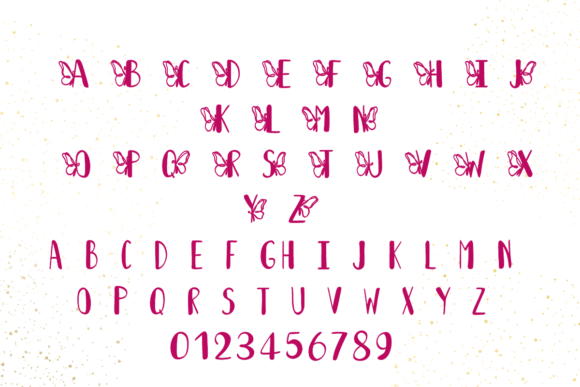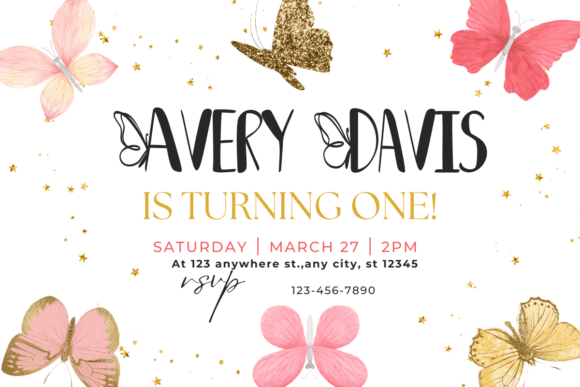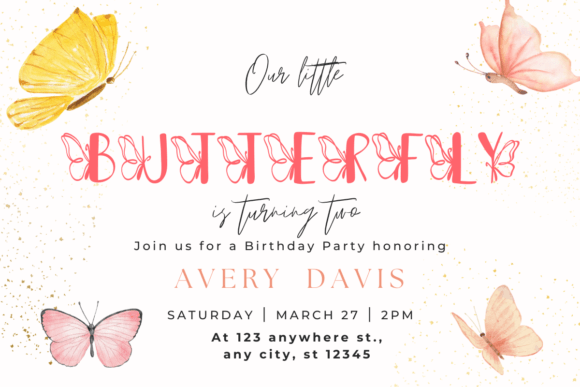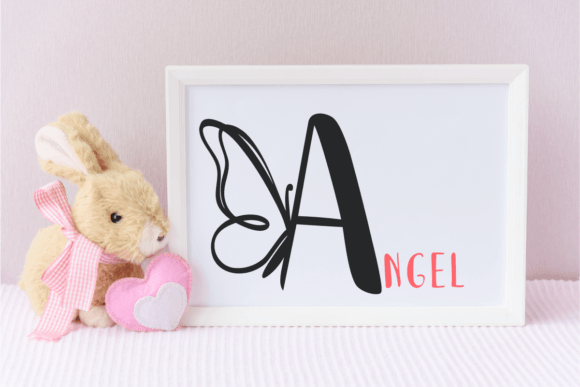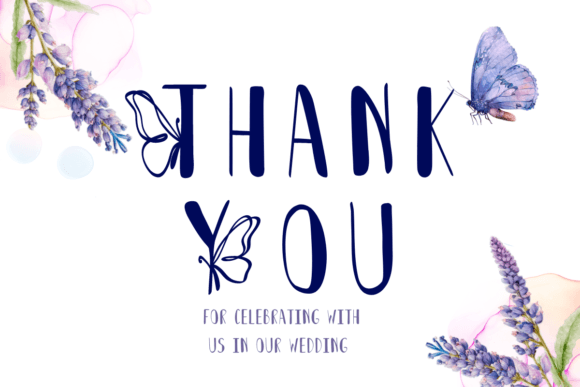
Unleashing Whimsy in Design: The Allure of Butterfly Font
Have you ever found yourself stuck in a design rut, searching for that perfect font to bring a spark to your project? Maybe you’ve scrolled through countless options, only to end up with something bland and uninspiring. I’ve been there too. But then, I stumbled upon the Butterfly Font – and everything changed.
This charming decorative font is more than just a pretty face. Each letter is adorned with delicate, wing-like features that give it a playful and whimsical feel. The Butterfly Font is perfect for designers looking to add a touch of magic to their designs, from wedding invitations to children’s book illustrations.
What sets the Butterfly Font apart is its ability to evoke a sense of wonder and curiosity in the viewer. For designers, it’s a valuable tool for creating memorable and engaging experiences. Whether you’re working on a personal project or a client brief, the Butterfly Font is sure to bring a smile to your face and a touch of personality to your design.
Key Features of Butterfly Font
- Unique Characteristics: The Butterfly Font features a distinctive, whimsical design with delicate curves and a sense of movement, making it perfect for creative and artistic applications.
Designer Review: Butterfly Font
Overall, I think the Butterfly Font has some nice qualities, but also some areas that need improvement. ✨
- Unique Design: The Butterfly Font has a distinctive and playful design that’s perfect for adding a touch of whimsy to your projects.
- Customizable: The font is highly customizable, allowing you to adjust the weight, spacing, and other parameters to suit your needs.
- Good Legibility: Despite its decorative appearance, the font remains relatively easy to read, making it suitable for body text as well as headings.
- Over-ornamentation: While the font’s design is unique, it can also be overwhelming if used excessively. It’s best to use it in moderation to avoid visual fatigue.
- Compatibility Issues: I’ve encountered some compatibility issues with older browsers and operating systems, which can affect the font’s rendering.
- Lack of Extensive Character Set: The font’s character set is limited, which may not be suitable for projects requiring a wide range of languages or special characters.
Overall, I’d give the Butterfly Font 3.5 out of 5 stars. It’s a fun and versatile font that can add a lot of personality to your designs, but it’s not without its limitations. With some careful use and consideration, it can be a valuable addition to your design toolkit.
Tips for Getting the Most Out of Butterfly Font
For the best results, use the Butterfly Font in conjunction with other creative elements, such as watercolor textures and floral patterns.
Common Use Cases for Butterfly Font
The Butterfly Font is ideal for: